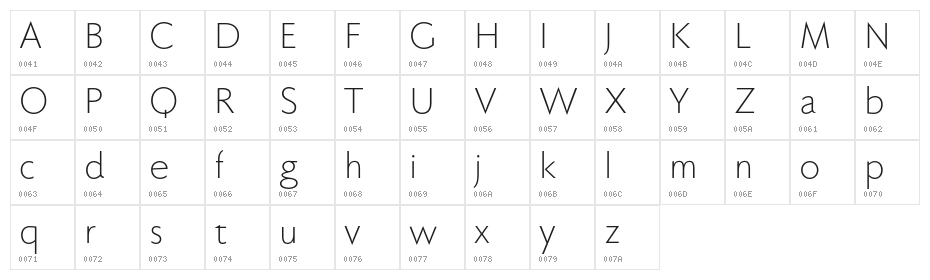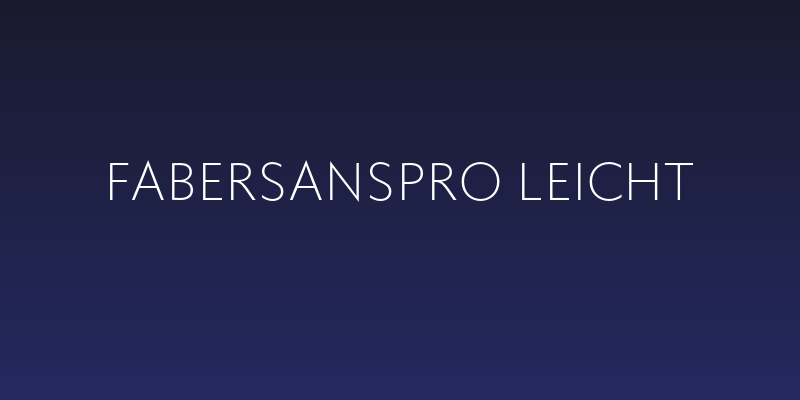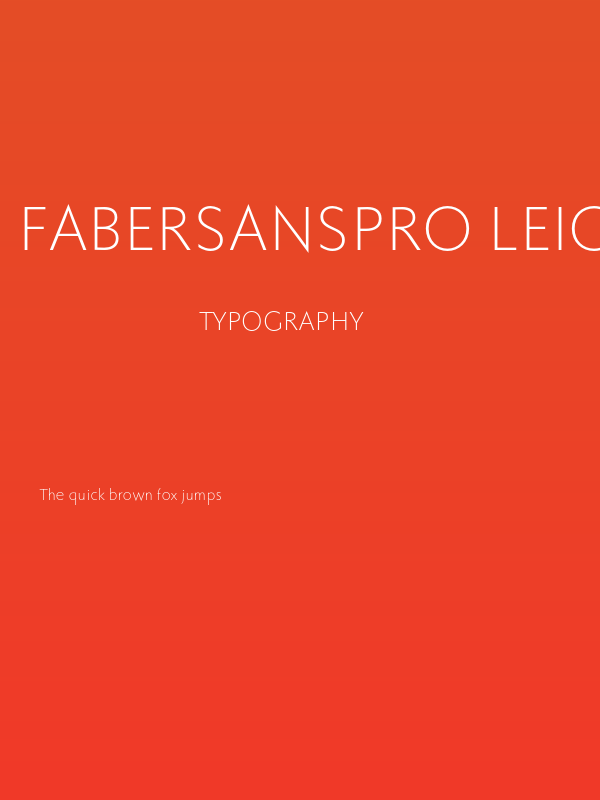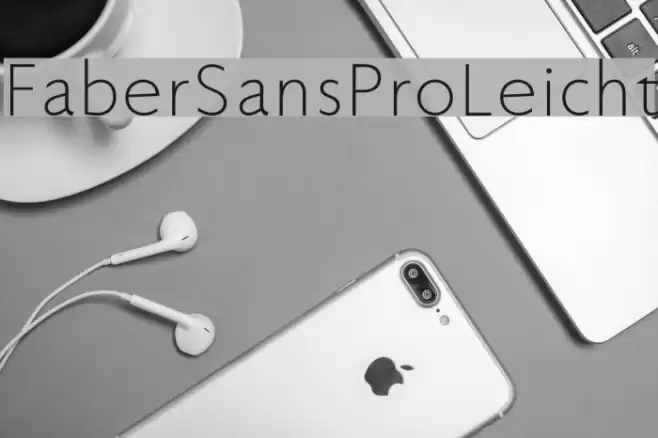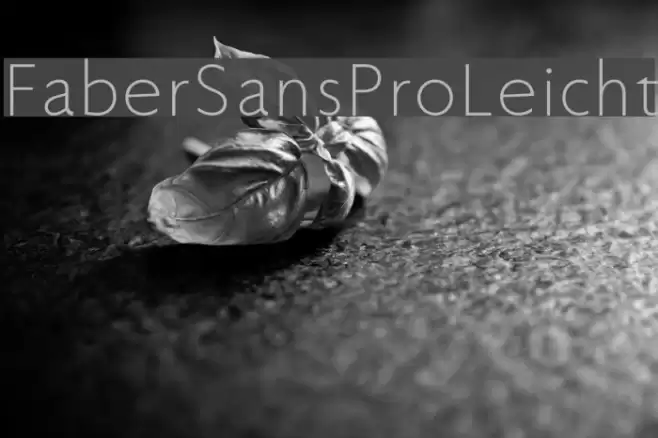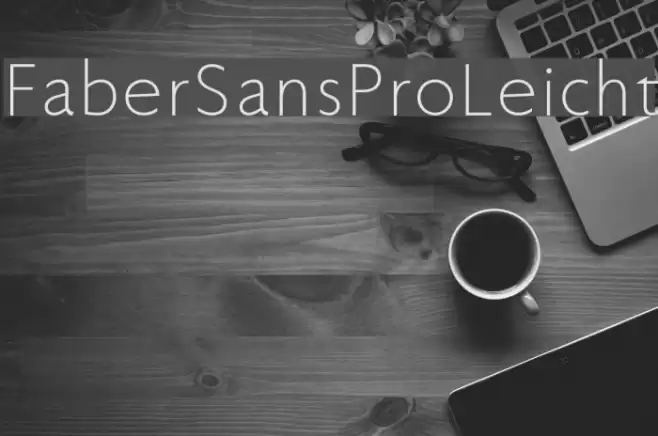
FaberSansPro-Leicht Font
✎ Sans Serif
FaberSansPro-Leicht Description
This font features a clean and modern sans-serif design with a light weight, making it ideal for minimalist and contemporary projects. The characters are well-proportioned with a consistent stroke width, providing a harmonious and balanced appearance. The uppercase letters are slightly taller than the lowercase, offering a subtle contrast that enhances readability. The font's simplicity and elegance make it versatile for various applications, from digital interfaces to print media. Its geometric shapes and open counters contribute to its legibility, even at smaller sizes.
| Use Case | Headlines, Body text, Logos |
| Proposed Projects | Ideal for branding, web design, editorial layouts, and corporate materials. |